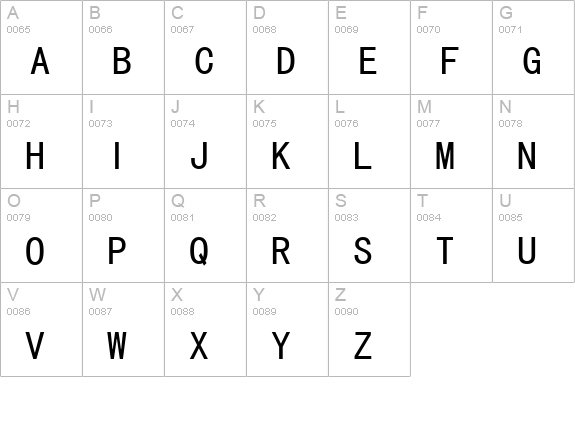
Discover the captivating allure of the �l�r �S�V�b�N font, a modern and stylish typeface that exudes sophistication and elegance. With its sleek lines and eye-catching curves, this font is perfect for adding a touch of class to any project. Whether you're designing a website, creating a logo, or crafting a poster, �l�r �S�V�b�N will elevate your work to new heights. The best part? This stunning font is completely free to use and is available for download at FontsMarket.com. Embrace the beauty and versatility of �l�r �S�V�b�N in your designs and watch as your creations come to life with a touch of timeless elegance. Elevate your typography game with the �l�r �S�V�b�N font today!